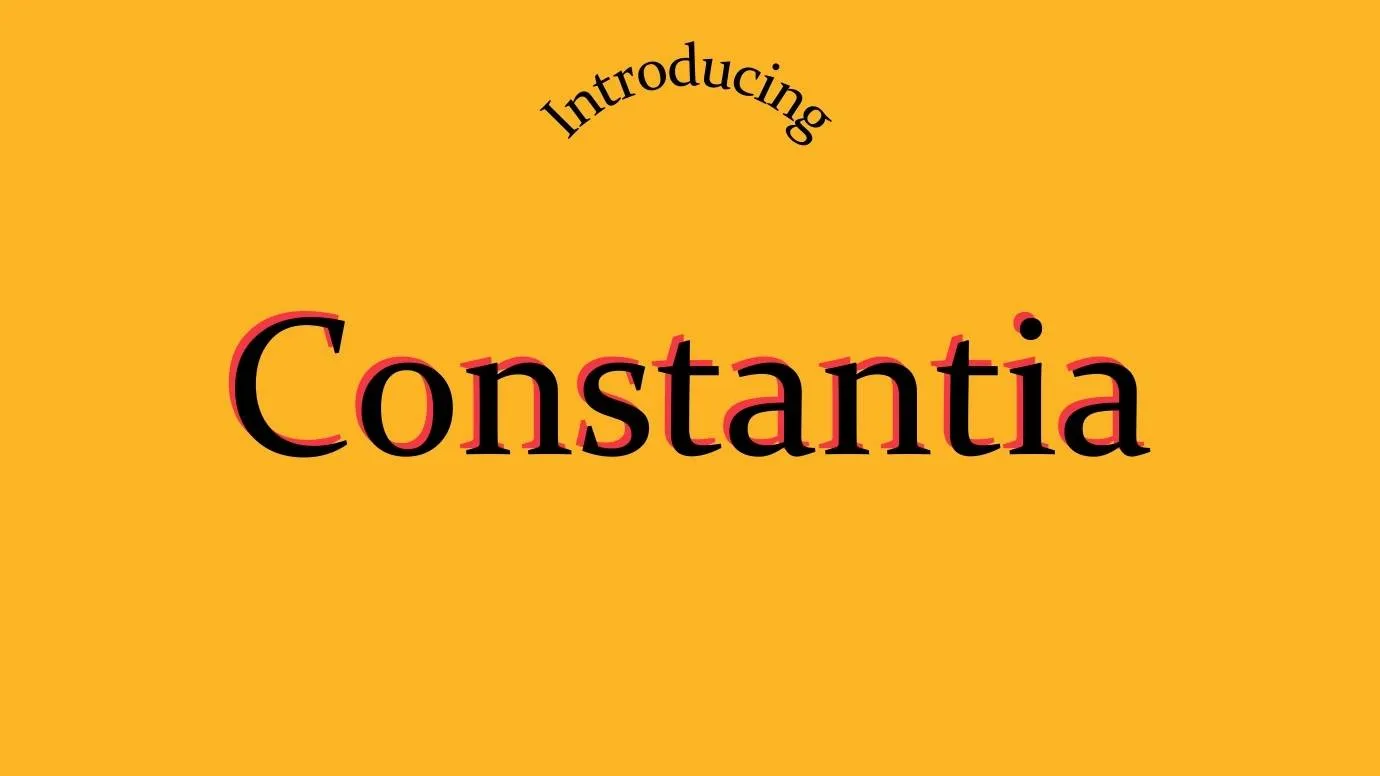
Constantia  is a high-quality and natural beauty font that is belonging to the largest serif typeface family. The designer of this typeface is a notable graphic designer John Hudson. This font has been inspired by Eric Gill’s Perpetua designs.
This font is also a member of the font collection and it was released with Window Vista. Calibri font, Cambria, Candara, Consolas, and Corbel Font are also available in the font collection.